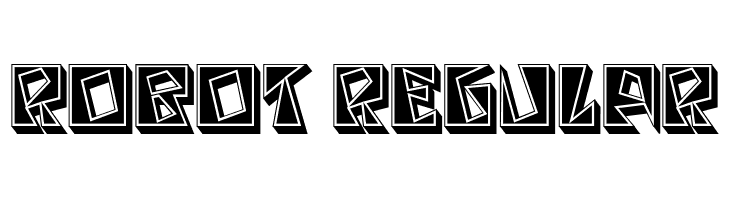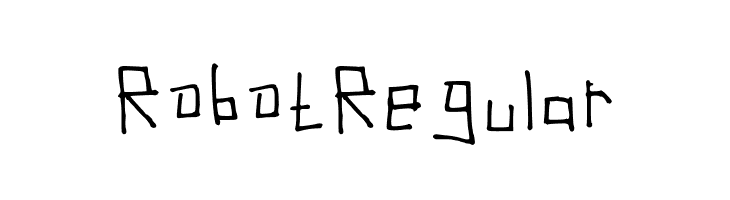
• Robot Regular 字体
A bold, geometric font with a futuristic, three-dimensional design.
• Robot Regular 字体
A hand-drawn, robotic font with irregular, jagged lines and a playful, mechanical appearance.
• Robot Renegades 字体
( Darrell Flood )
A bold, geometric font with sharp angles and a futuristic style.
• Robot Renegades Italic 字体
( Darrell Flood )
A bold, italicized font with a futuristic and angular design.
• Robot Roc 字体
A futuristic, angular font with a bold and dynamic style.
• Robot Roc Not a Tilter 字体
A bold, geometric font with a futuristic and robotic design.
• Robot Socialista 字体
A bold, industrial font with a mechanical, robotic aesthetic.
• Robot Teacher 字体
( Fonts by Divide By Zero! - fonts.tom7.com )
A playful and whimsical font with quirky letterforms and exaggerated serifs.
• Robot Warriors 字体
A bold, geometric font with a futuristic and robotic aesthetic.
• Robot Warriors Italic 字体
A bold, futuristic font with angular, slanted characters.